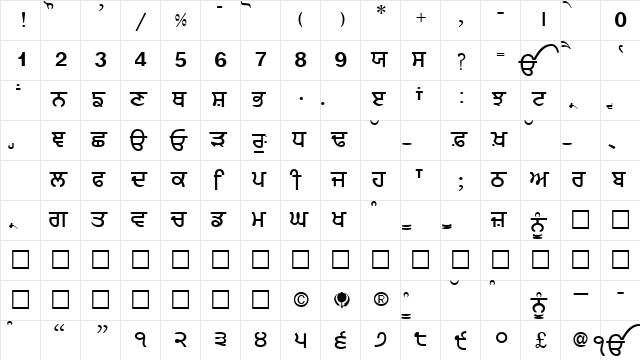
Merapunjab Normal
Design Context for Merapunjab Typeface
Merapunjab offers clean, dependable letterforms without strong stylistic allegiance, making it a practical choice for designers who need flexibility.